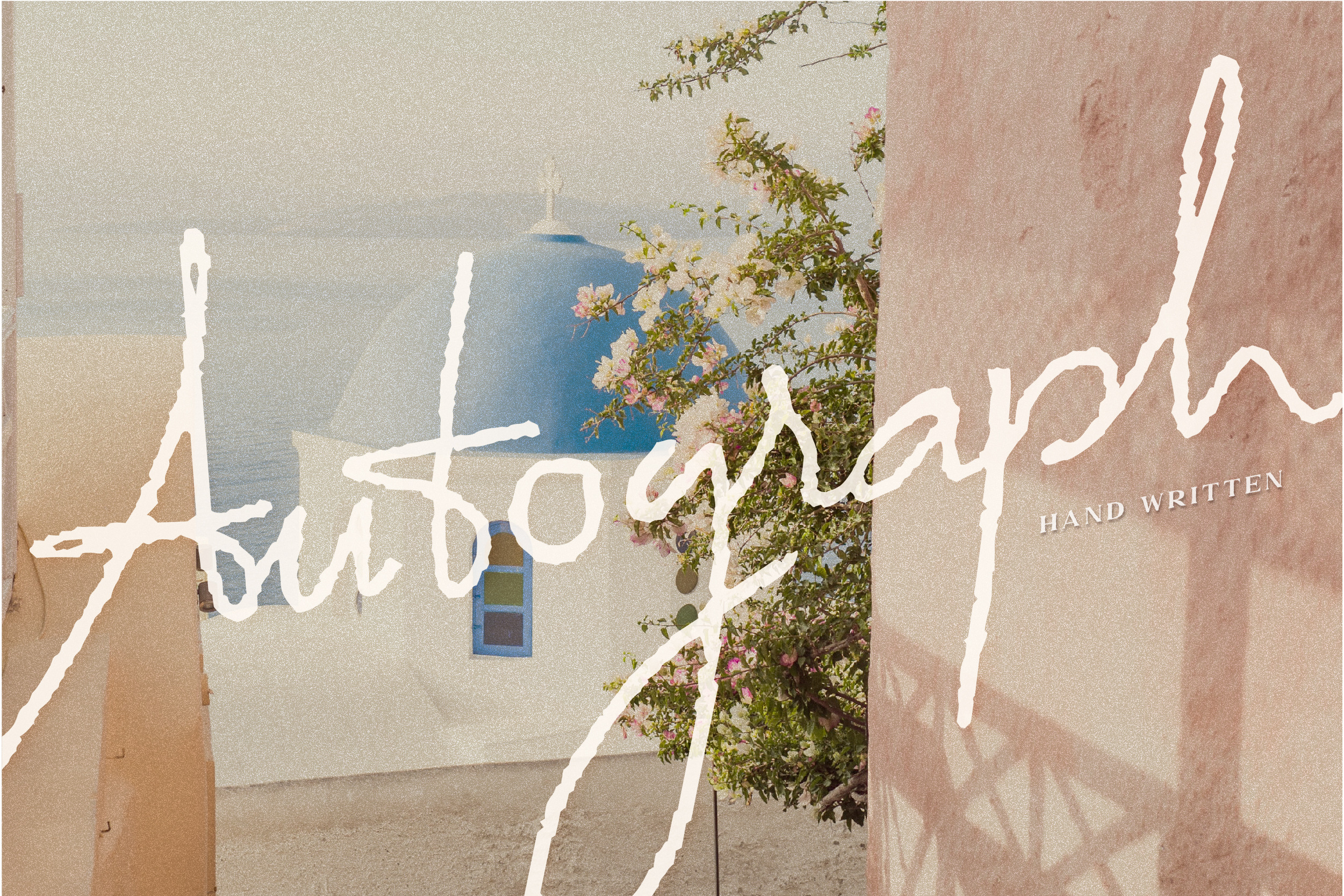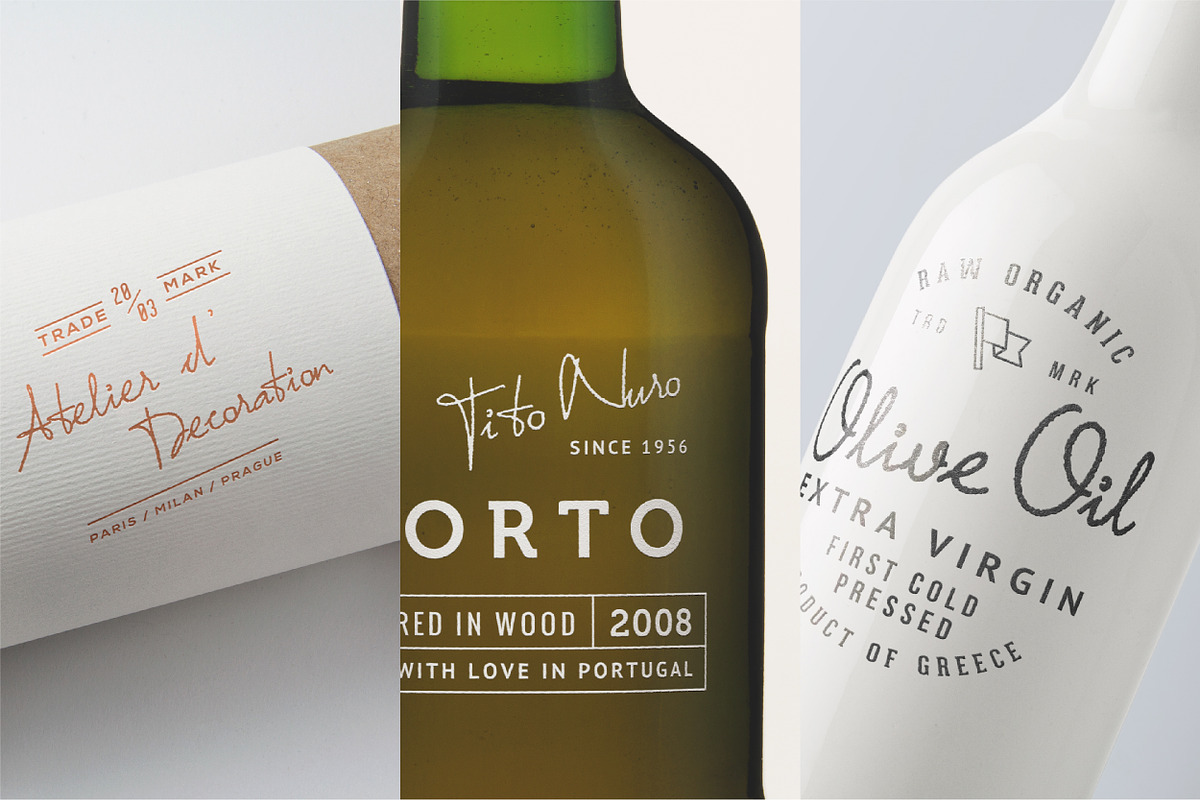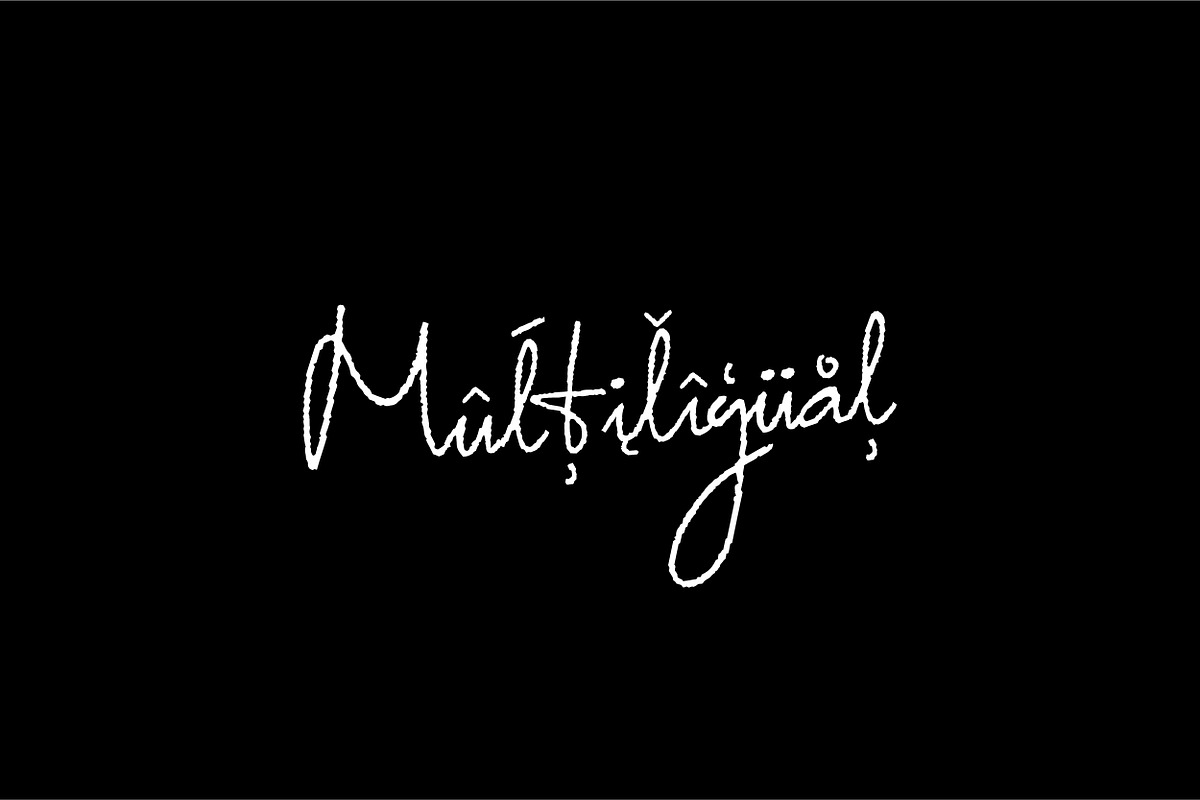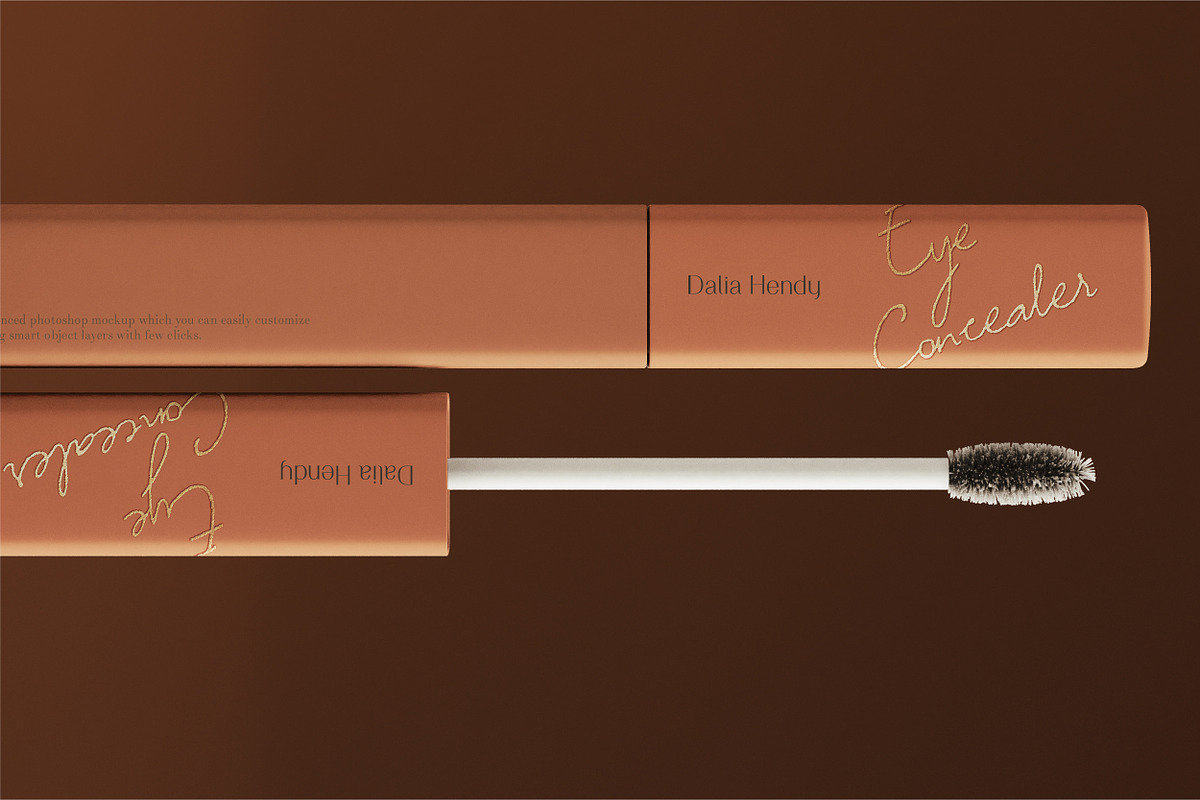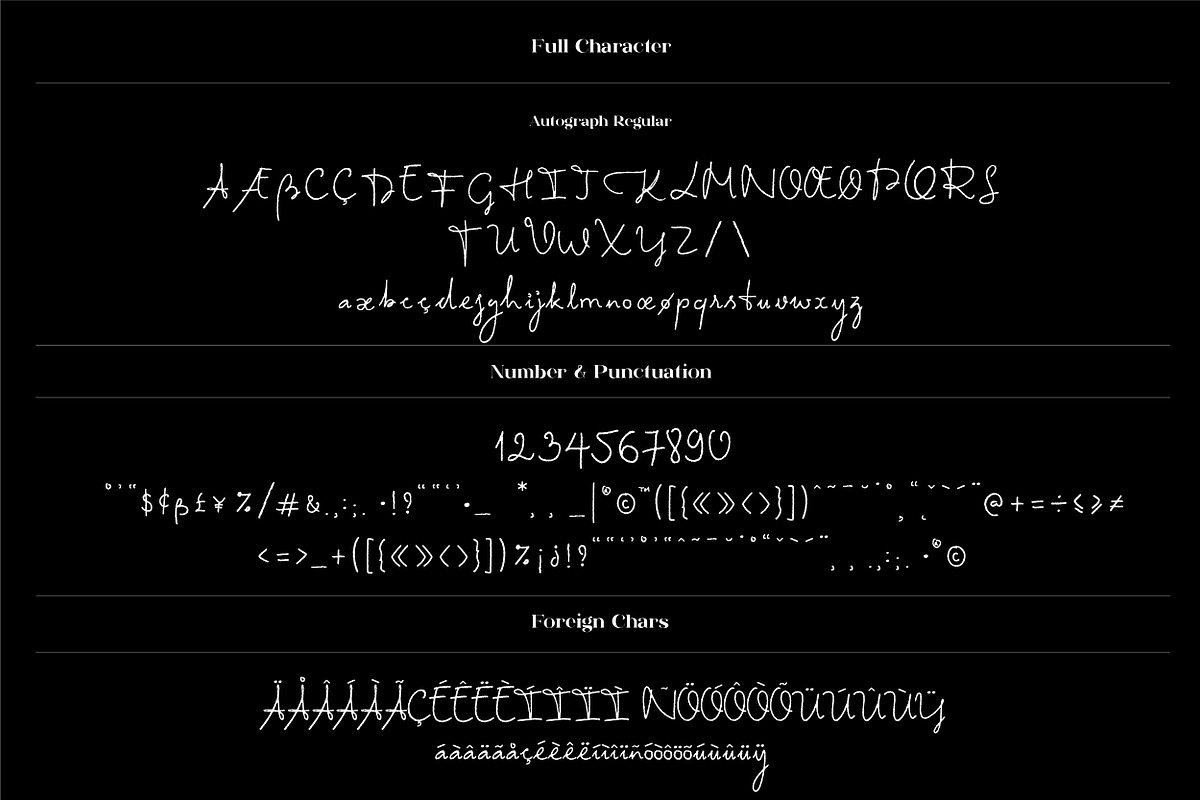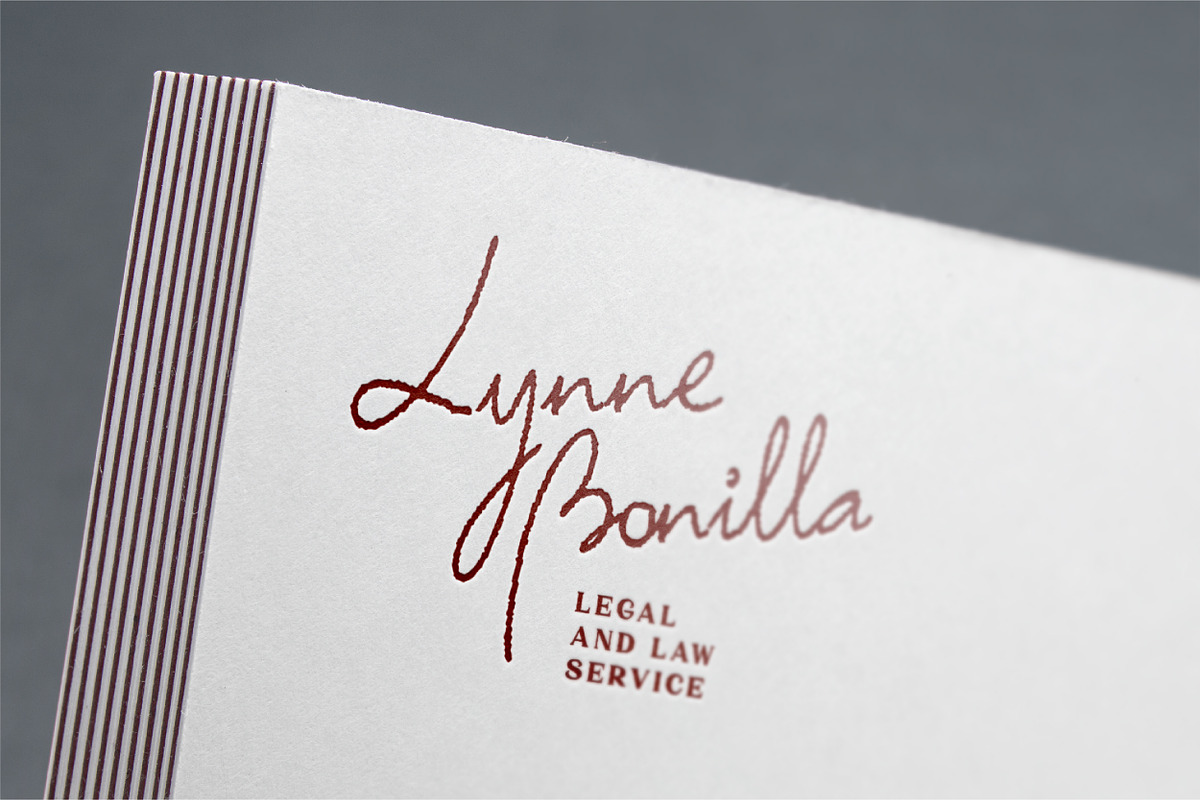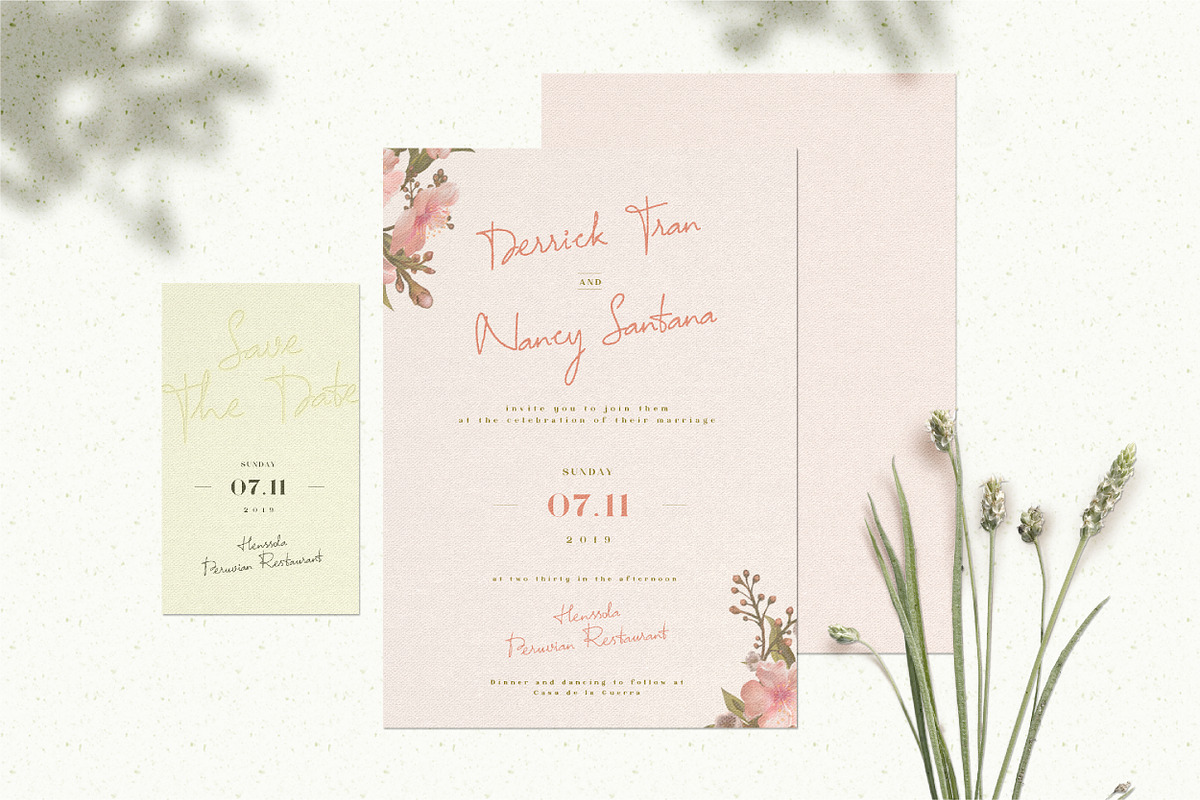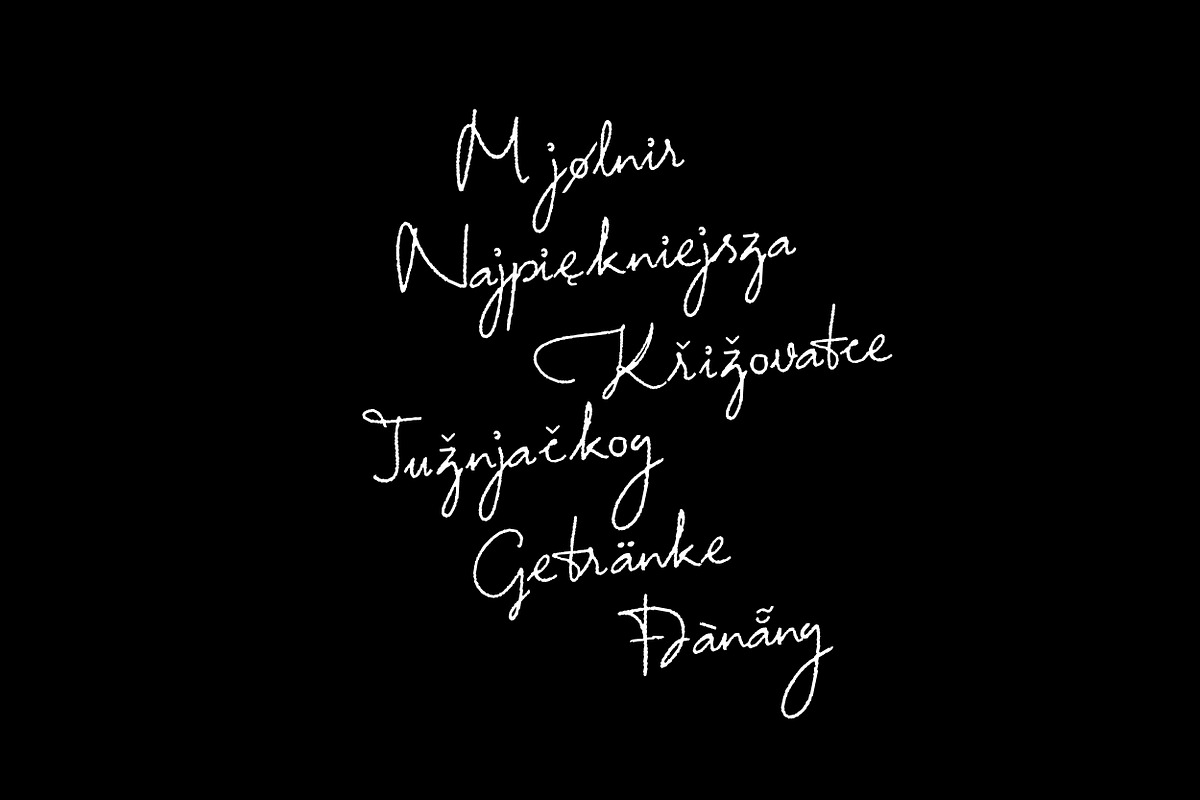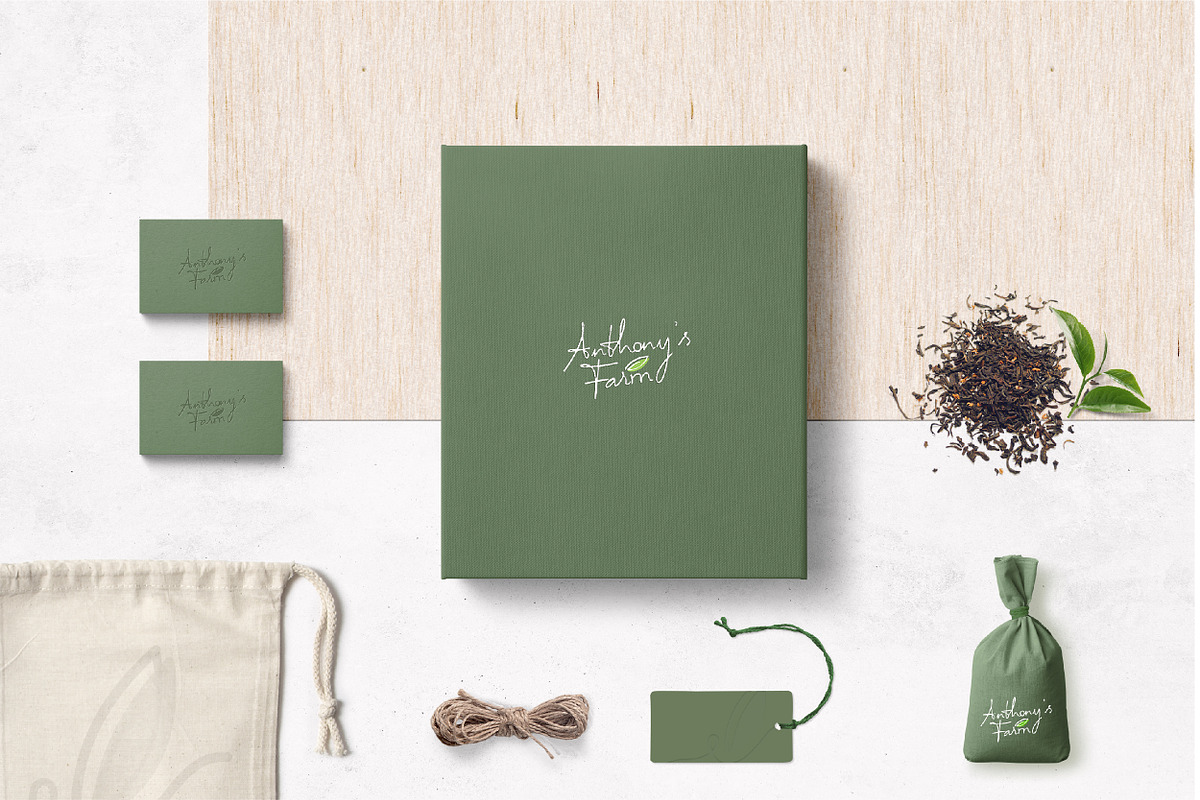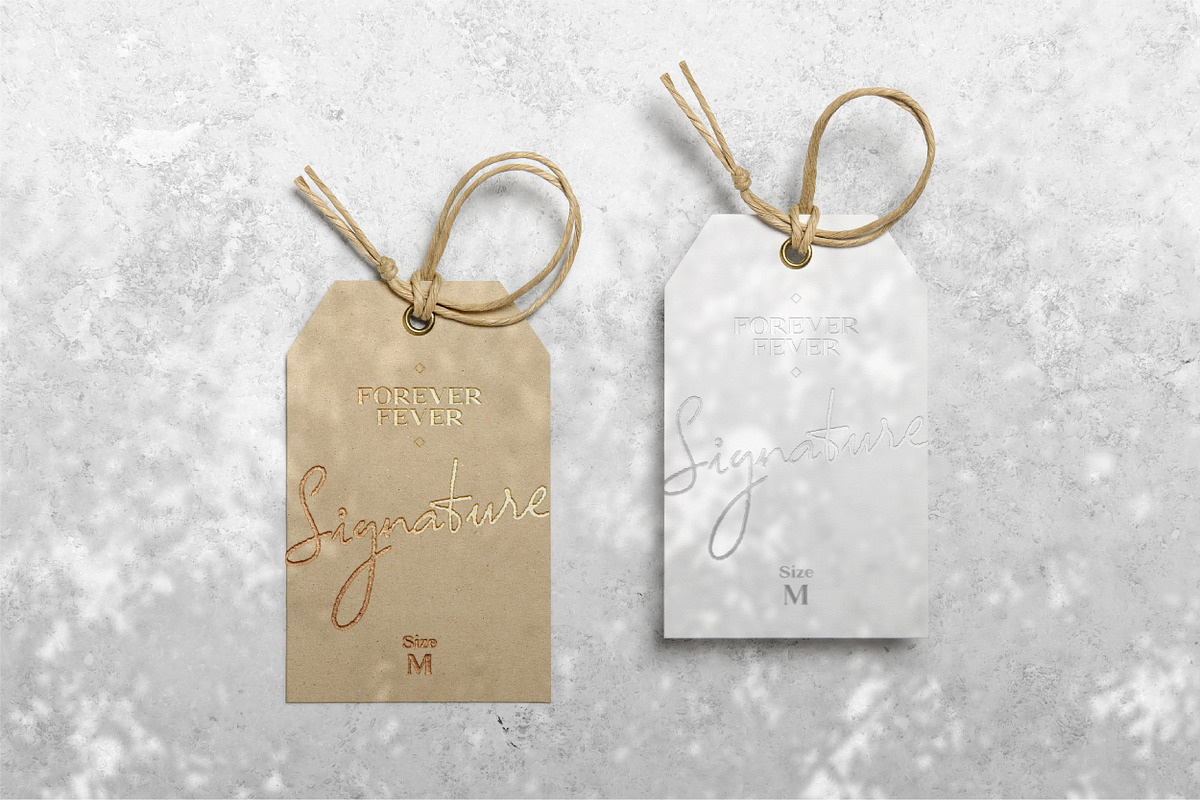
Autograph - Handwritten Font
Say hi to Autograph - our signature handwritten typeface inspired by our own handwriting. Autograph brings a raw and natural touch to any design. Suitable for logo designs, magazines, packaging, wedding papers, and more.
Pro Tips: The font works best when you shear it up about 5 degrees to 10 degrees, making it looks much more like you are writing on a piece of paper. Cheers!
HV AUTOGRAPH FEATURE:
- All Europeans languages
- Vietnamese